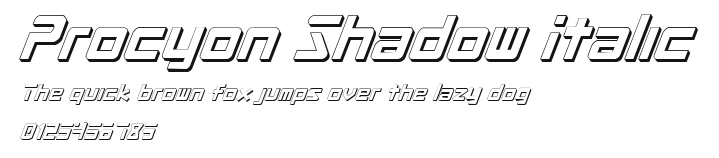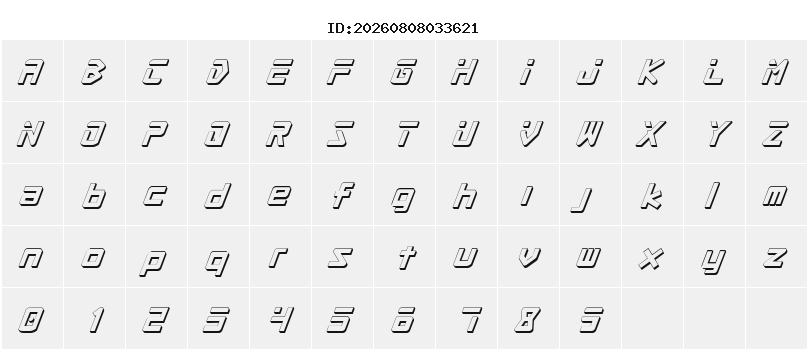
• Font Name: Procyon Shadow Italic
• Font Style: Shadow Italic
• Full Font Name: Procyon Shadow Italic
About Procyon Shadow Italic.ttf
Procyon Shadow Italic.ttf is a modern, elegant sans-serif font designed for ultimate readability and visual harmony. Perfect for branding, headlines, web design, and print materials.